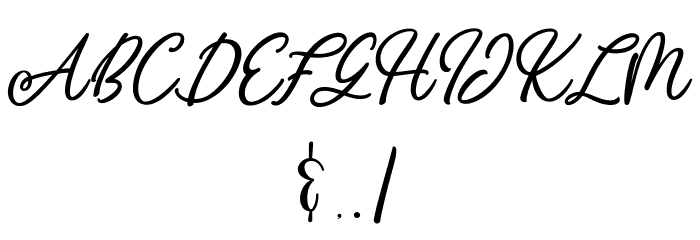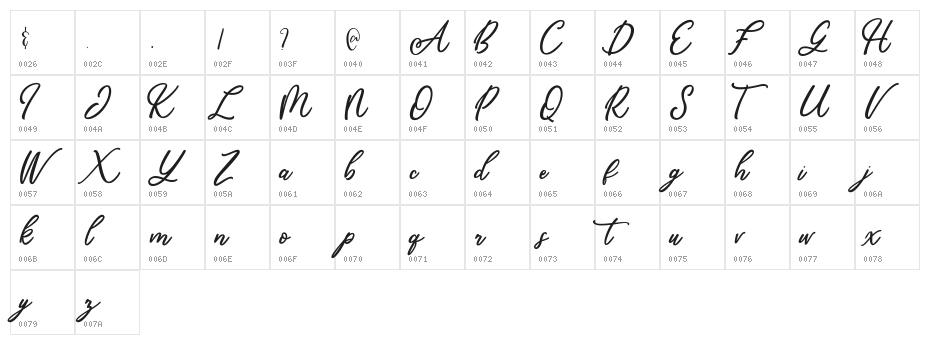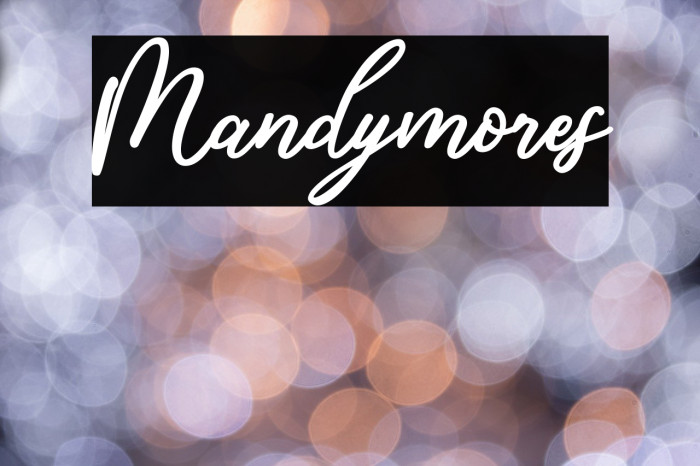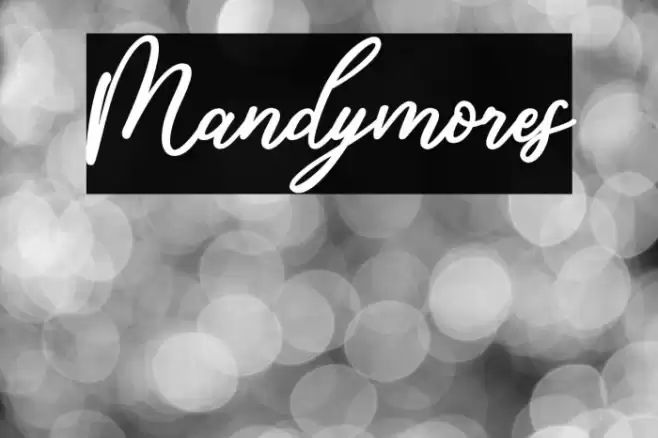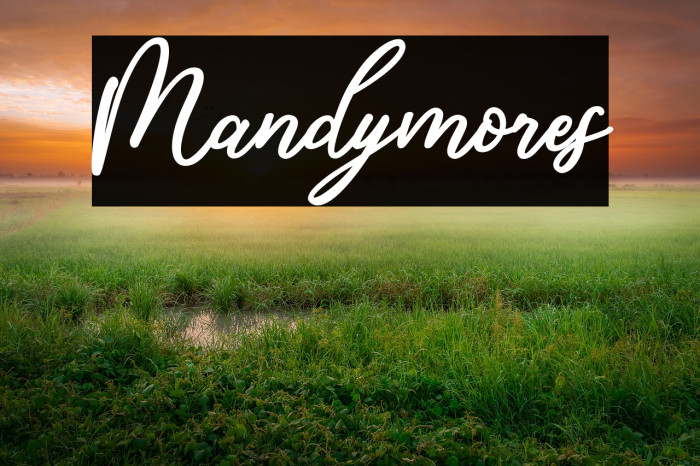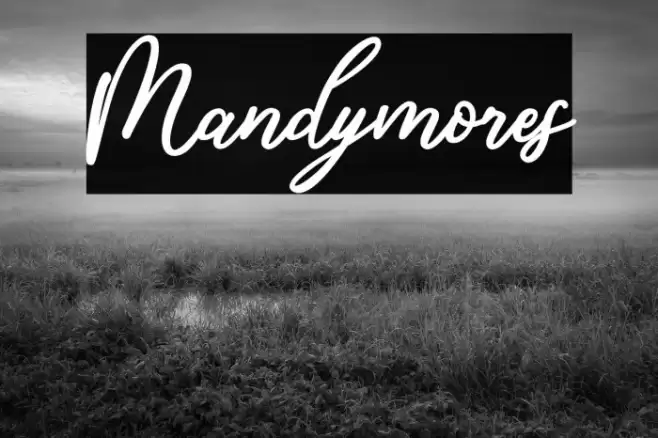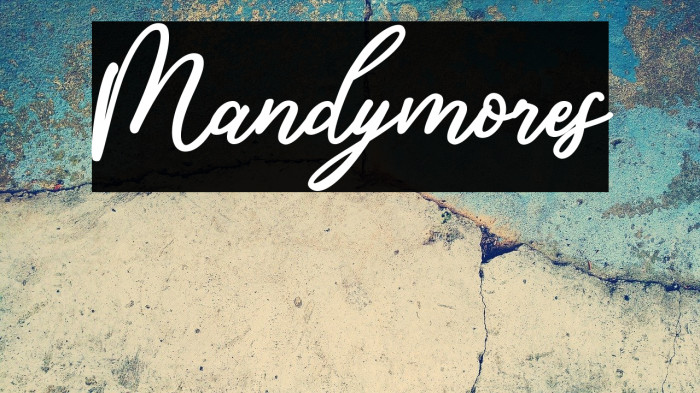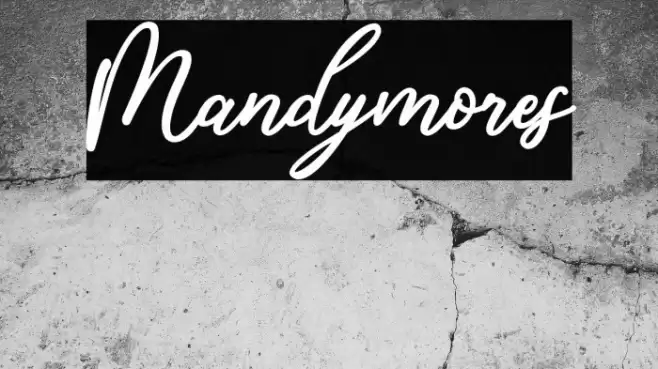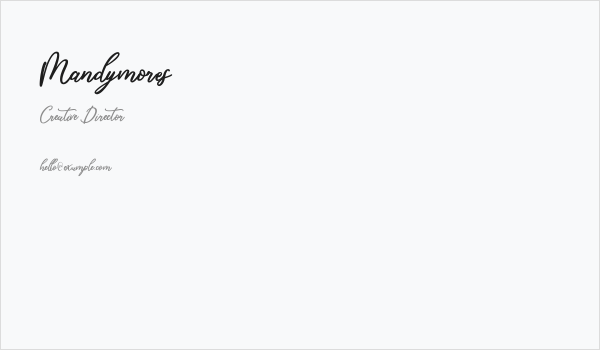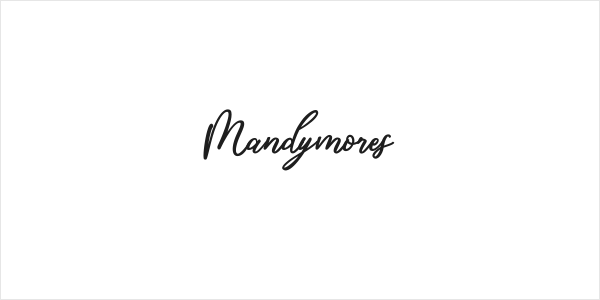
Mandymores Font
Mandymores Description
This font exudes elegance and fluidity with its cursive, handwritten style. The characters are connected, creating a seamless flow that is both graceful and sophisticated. The uppercase letters are slightly more elaborate, with flourishes that add a touch of drama, while the lowercase letters maintain a consistent, smooth rhythm. The numbers and special characters are designed to match the overall aesthetic, ensuring uniformity across all text. This font's style is reminiscent of classic calligraphy, making it suitable for formal and decorative uses. The strokes vary in thickness, providing a medium contrast that enhances readability while maintaining an artistic flair.
| Proposed Projects | Ideal for wedding invitations, greeting cards, elegant branding, and decorative signage. |